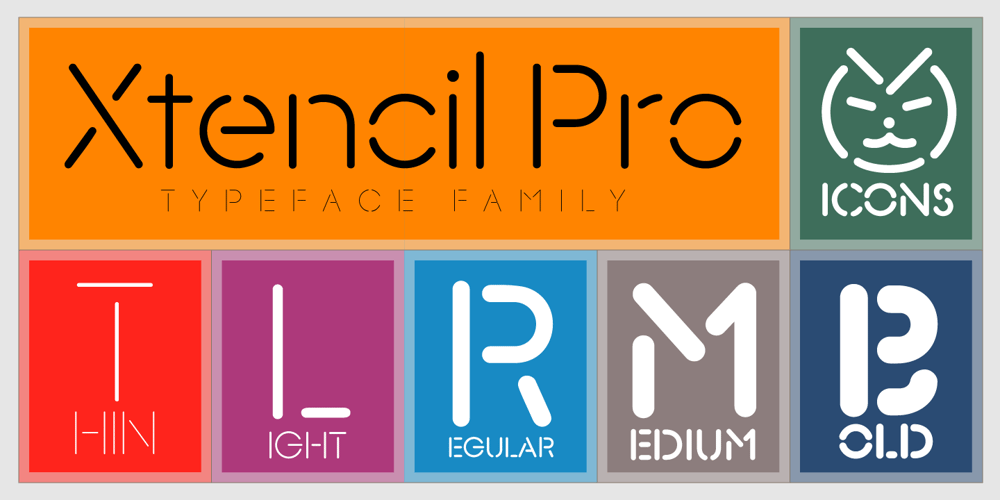
Xtencil Pro Font Family was designed by John Moore and published by John Moore Type Foundry. Xtencil Pro contains 9 styles and family package options. Xtencil is a typeface inspired by the shapes of the drawing templates letters, based on the letter forms of Photo-lettering Glaser Stencil from universal teacher Milton Glaser who at the same time was influenced by the modernism and the Futura of Paul Renner. Xtencil is a round letter to create a great looks, ideal for posters and headlines. Xtencil not come as a drawing template, but as true Pro OpenType typography. Now in a complete family with upper and lower cases, an inline and a thickened Shadow versions to play with layers, also accompanied by a Dingbats font with fun graphics in the same spirit.